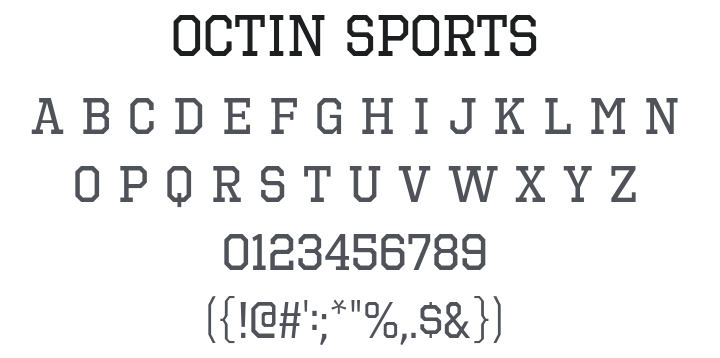
Octin Sports Font
About Octin Sports
Octin Sports delivers the strength and precision of athletic lettering in a bold, squared design built for visibility and power. Its seven weights span from agile light styles to commanding black, keeping legibility sharp across jerseys, signage, and branding. While rooted in sports graphics, its sturdy geometry adapts to construction, law enforcement, and performance-oriented design. Supporting Latin-based European languages, Octin Sports maintains its confident voice worldwide. As part of the Octin family, it carries the same industrial edge; tough, disciplined, and made to perform.